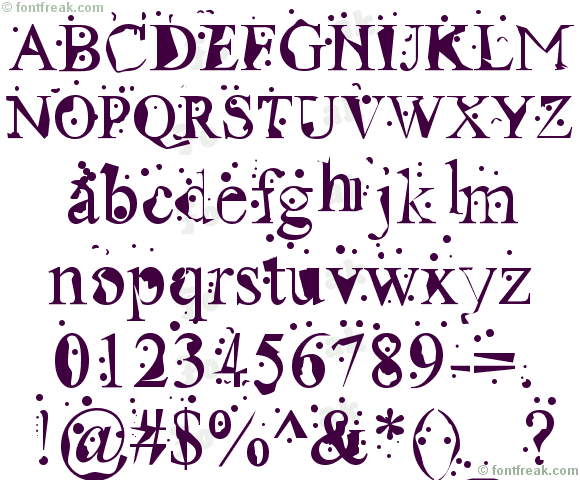
Radioactive Roman
About Radioactive
Introducing the Radioactive font by Gregfonts, a striking display typeface that captures attention with its unique visual appeal. This freeware font, created in 1996 by Greg Meronek, embodies a captivating blend of creativity and style, making it an excellent choice for various design projects. As a display font, Radioactive showcases a dynamic and bold character that is perfect for grabbing the viewer's attention.
Visually, the Radioactive font features irregular stroke weights, lending it a playful and energetic quality. The contrast between thick and thin lines creates a sense of movement, while the generous spacing between letters enhances readability. Decorative elements, such as whimsical curves and unexpected flourishes, add to its distinct personality, making it ideal for designs that aim to stand out.
This font serves a multitude of use cases. It is particularly well-suited for eye-catching movie posters, where its bold and unconventional style can evoke excitement and intrigue. Additionally, Radioactive is perfect for music event flyers, attracting a youthful audience with its vibrant aesthetic. Small business owners can utilize it for branding purposes, particularly in creative industries like cafes or boutique shops. Moreover, it can elevate social media graphics, capturing the essence of modern design trends.
Targeting graphic designers, content creators, and small business owners alike, the Radioactive font offers versatility and flair. Its ability to convey a sense of fun and innovation makes it a valuable asset in any designer's toolkit.
In conclusion, the Radioactive font stands out due to its unique combination of playful charm and bold character. Its captivating design allows for endless creative possibilities, making it a must-have for those seeking a distinctive typeface. Don't miss your chance to enhance your projects with the Radioactive font free download today.